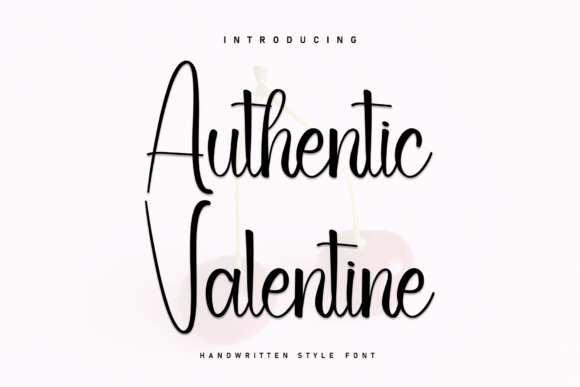
The Quest for the Perfect Valentine’s Day Font
Ah, Valentine’s Day – a time for love, chocolates, and, for us designers, the quest for that perfect font to convey it all. I recall working on a project for a client who needed an invitation design that screamed romance and warmth. The challenge? Finding a font that didn’t feel too cliché or over-the-top. That’s when I stumbled upon **Authentic Valentine**, a charming handwritten font that quickly became my go-to for all things Valentine’s Day.
A First Impression: What I Love About Authentic Valentine
Here’s what makes Authentic Valentine a standout in my book:
• ✨ Smooth Strokes and Organic Lines: The font’s fluidity gives it a natural, hand-written feel that’s perfect for creating warm and inviting designs.
• ✅ Versatility: Whether you’re working on branding, invitations, or social media graphics, Authentic Valentine fits right in.
• 💕 Emotional Connection: The font has a way of conveying love and sincerity without being too sappy or overdone.
An Honest Review: The Not-Perfect-but-Almost Section
No font is perfect, and Authentic Valentine is no exception. Here are a few quirks to keep in mind:
• 🤔 Limited Use in Very Formal Contexts: While it’s amazing for creative projects, it might not be the best fit for very formal or corporate designs.
• ⚠️ Some Letters May Require Manual Kerning: For those perfectionists out there, be aware that you might need to tweak the spacing between certain letters for optimal readability.
One of the joys of Authentic Valentine is its support for OpenType features. This means you get access to:
• Stylistic Alternates: Swap out certain letters for stylistic variations to add more personality to your text.
• Glyphs: Many fonts, including Authentic Valentine, come with additional glyphs – think hearts, flowers, and other Valentine’s Day icons.
The Story Behind Authentic Valentine
While the origins of Authentic Valentine might be shrouded in mystery, it’s easy to imagine a designer sitting down with a pen and paper, aiming to capture the essence of love and connection in a font. Perhaps it was a romantic dinner, a heartfelt letter, or simply a desire to create something beautiful that inspired this charming font.
Font Name Authentic Valentine Font
Author KC Production
Can I use Authentic Valentine for my branding? Absolutely! Its unique and warm feel makes it an excellent choice for branding that needs to stand out.
Does Authentic Valentine support OpenType features? Yes, it does, offering a range of stylistic alternates and glyphs to enhance your designs.
Is Authentic Valentine easy to read? Yes, despite its decorative nature, Authentic Valentine is surprisingly legible, making it suitable for both headings and body text.